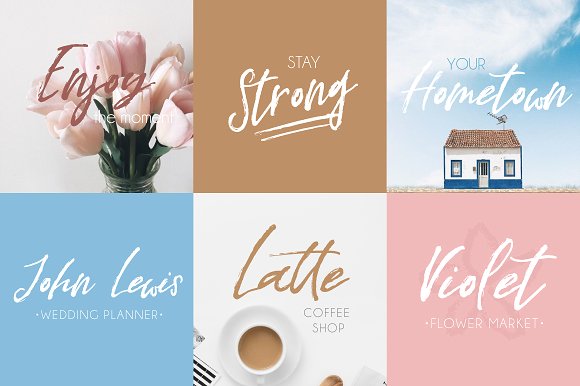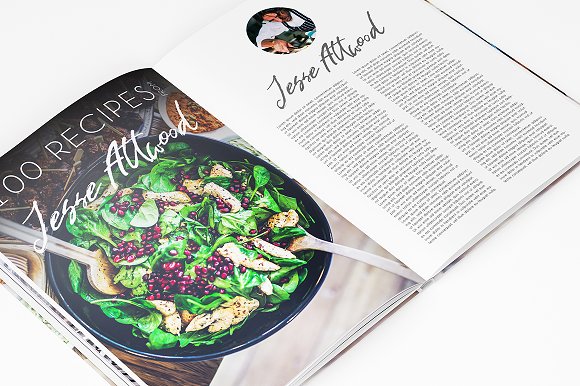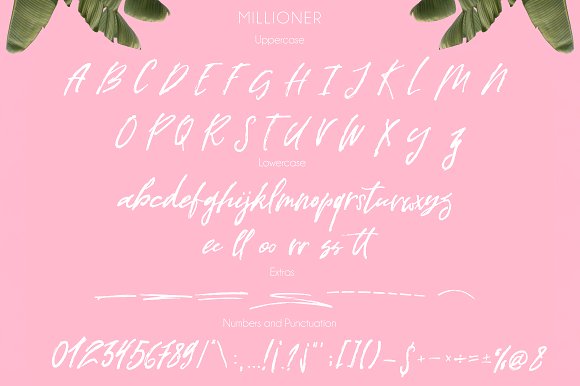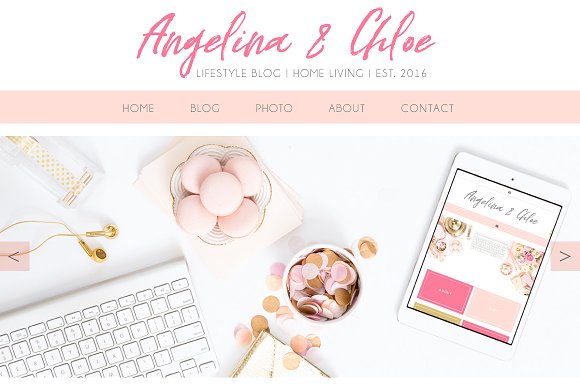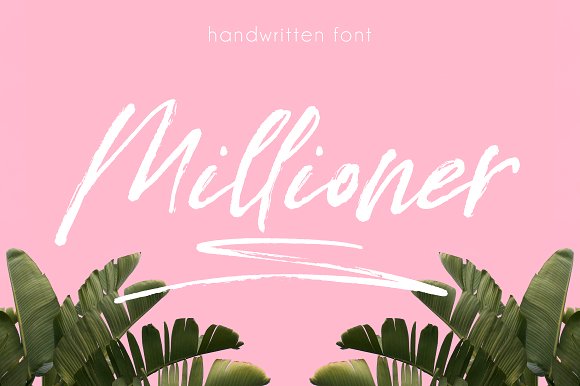
Millioner Script Font
Millioner Script
It’s hand written dry brush script. With this type, you will see a lot of ligatures and extras. This font is ideal for branding and decorate your any project.
This font are perfect for wedding invitation or your blog. Also with their help, you can create a logo or beautiful frame for your home. Or just use for your small business, book covers, stationery, marketing, magazines and more.